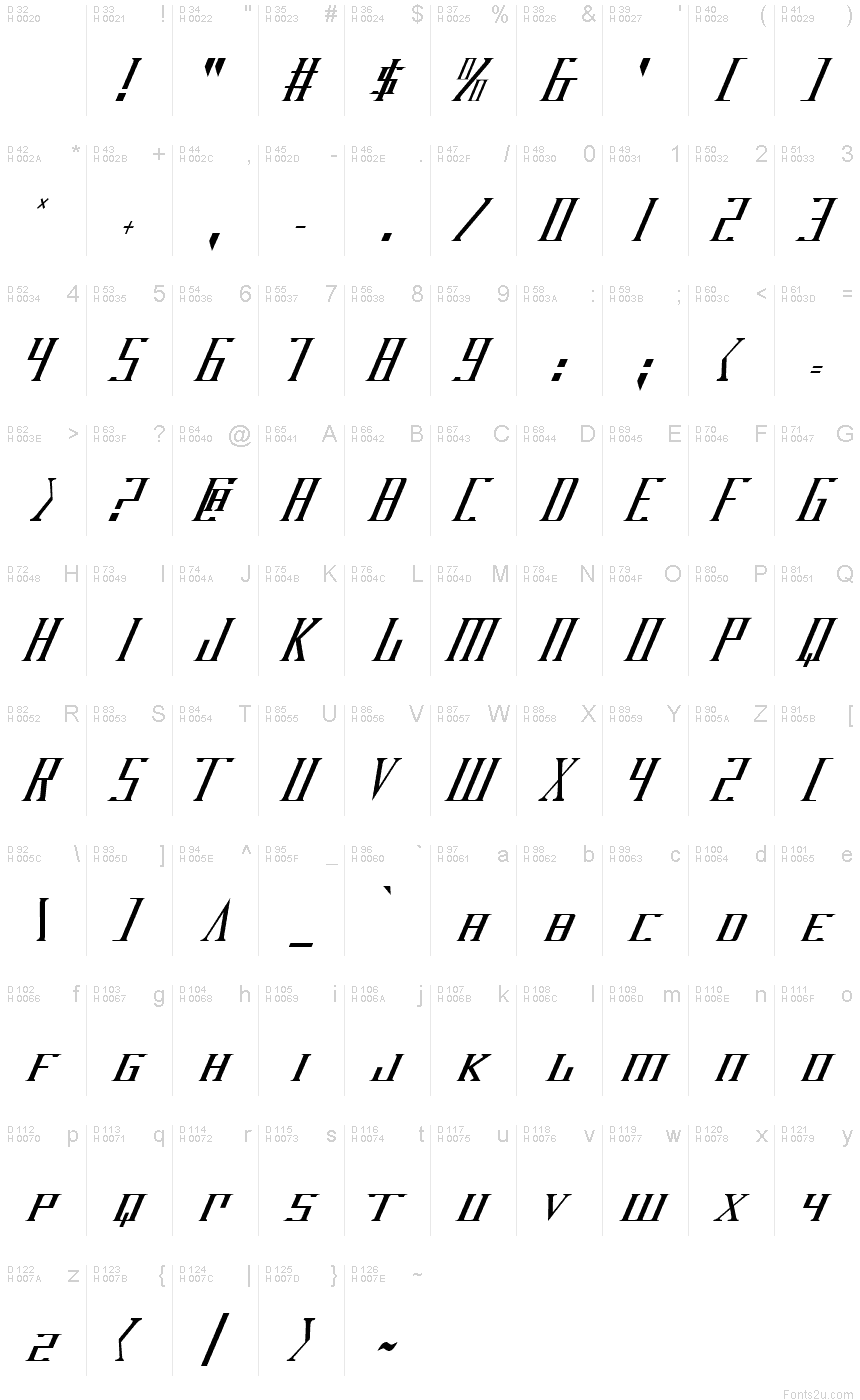
DarkWind Condensed Italic by Daniel Zadorozny of Iconian Fonts is a free condensed calligraphic display font built around a forceful forward slant and sharply changing stroke widths. Broad strokes and knife-sharp cuts form a fast, aggressive silhouette.
Gothic fantasy and heavy-metal graphics are its clearest territory, making it suitable for album covers, game titles, and martial arts event posters with blade-like imagery and a strong sense of motion. For apparel branding and energy drink packaging, the slanted profile can become a recognizable product mark, echoing the angled shapes of logos, weapons, or racing graphics.